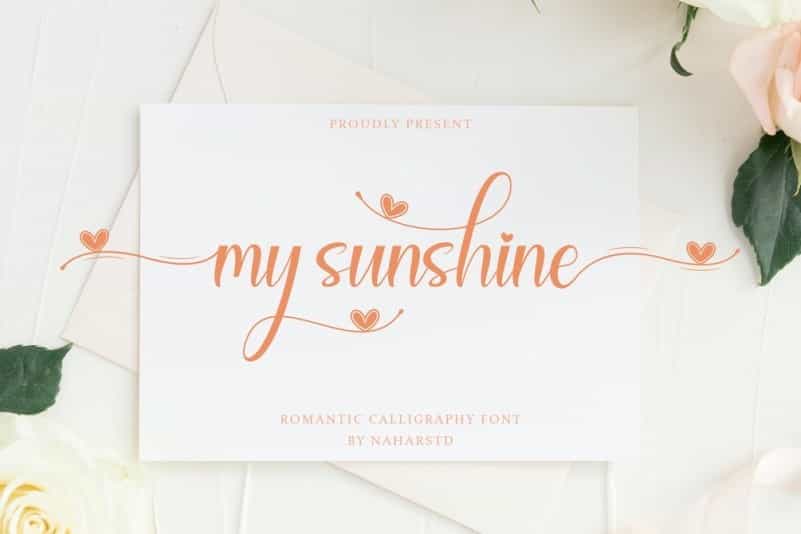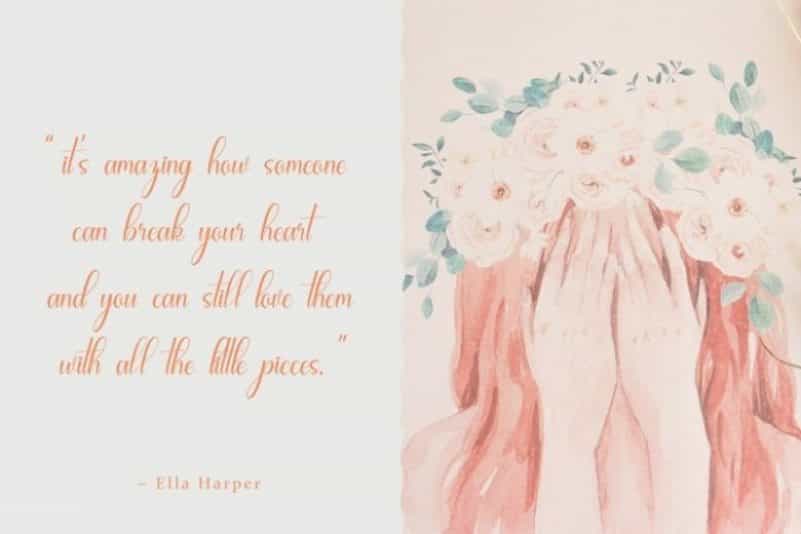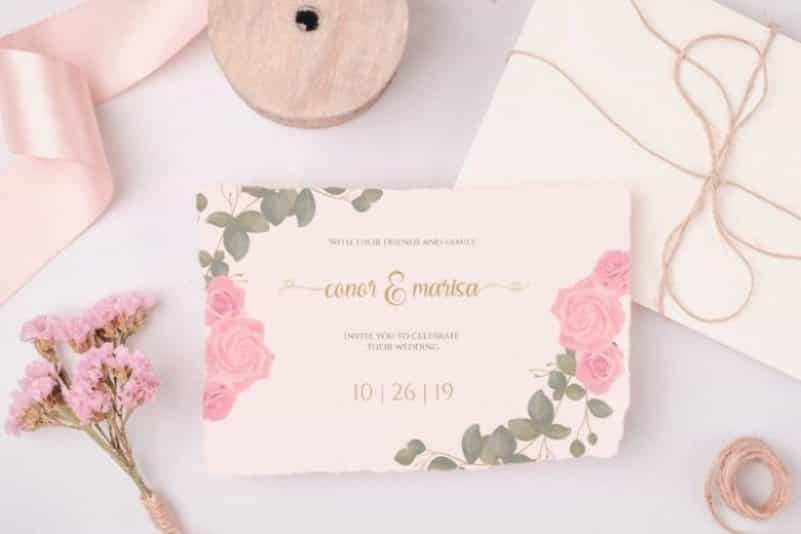
My Sunshine is a contemporary calligraphy typeface that is based on handwriting that is composed of flowing and irregular swirls which makes it look stunning. It is a beautiful Typeface can be used is ideal for greeting cards and wedding invites captions for photos, quotes advertising, posters, of water-based paints and correspondence and a myriad of different uses.